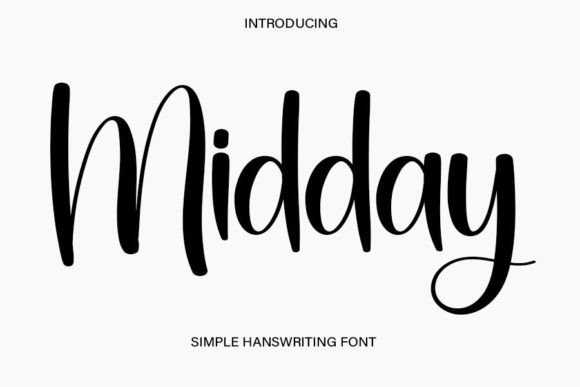
Welcome to the enchanting world of Midday Font, a captivating script font family that oozes elegance and sophistication. This exquisite creation by the talented designers at Harlek Studio will transport you to a realm where your creative visions take flight.
Midday's enchanting characters dance gracefully along the baseline, leaving a trail of beauty in their wake. Each letter is meticulously crafted, adorned with delicate curves and flourishes that evoke a sense of timeless charm. Whether you're a seasoned designer or just starting your creative journey, Midday will elevate your projects to new heights.
With its inherent versatility, Midday effortlessly adapts to a myriad of design endeavors. Whether you're crafting stunning wedding invitations, captivating social media posts, or eye-catching marketing materials, Midday will effortlessly elevate your creations. Its versatility extends to diverse industries, from fashion and beauty to travel and lifestyle, making it the perfect choice for expressing your unique brand identity.
Harness the power of Midday to inject a touch of luxury into your designs. With its innate ability to transform the ordinary into the extraordinary, Midday will add a touch of magic to your visual masterpieces. Its timeless appeal ensures that your creations will endure, leaving a lasting impression on your audience.